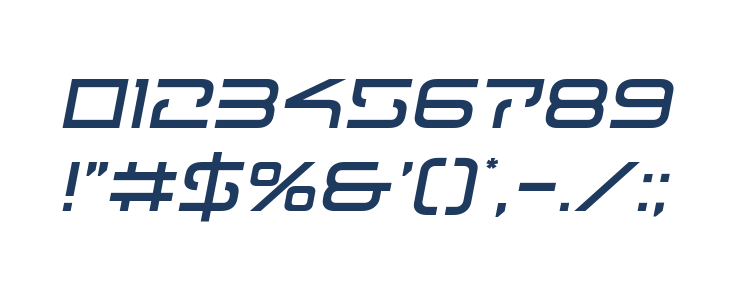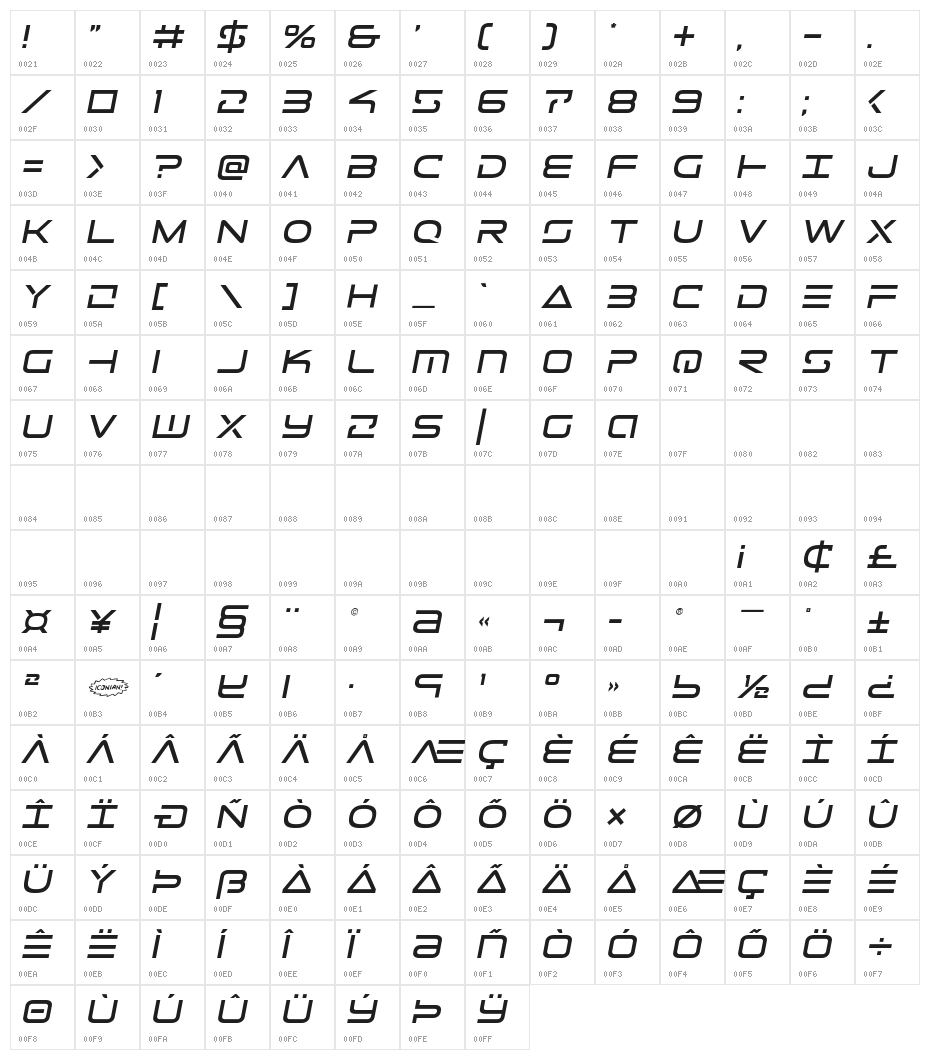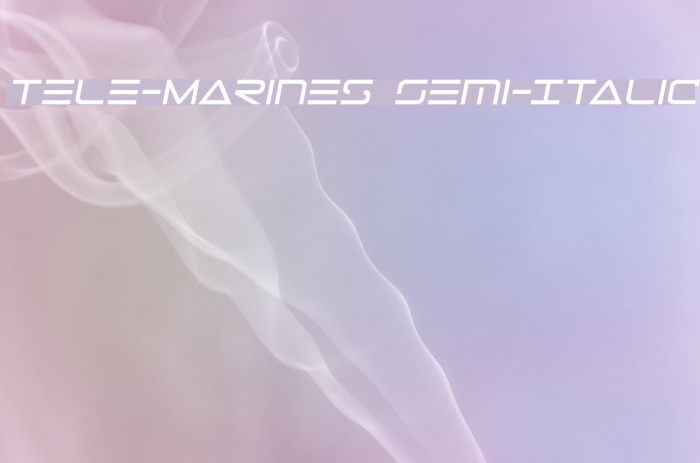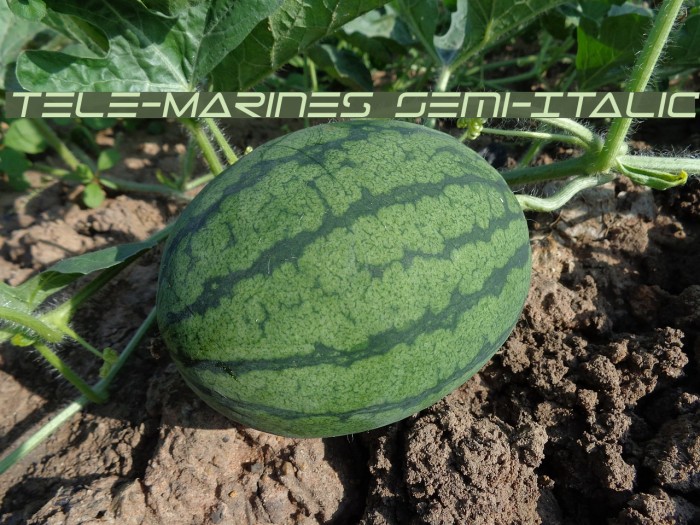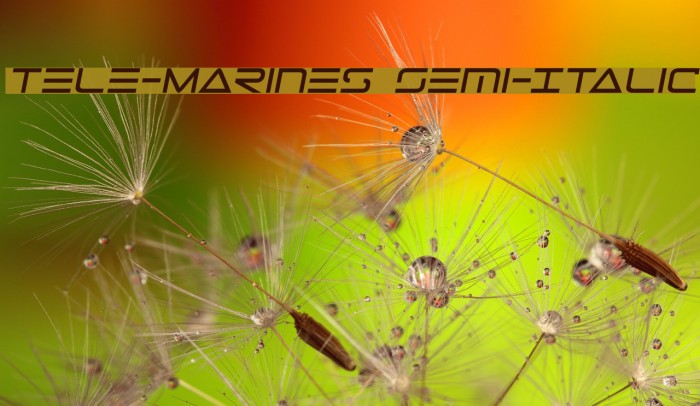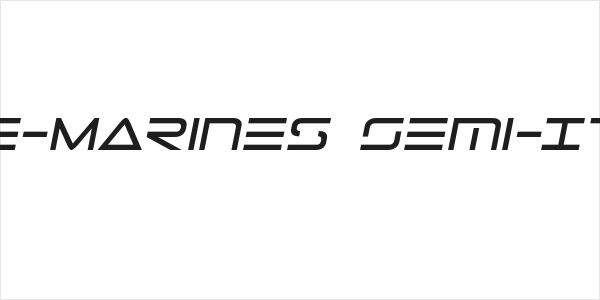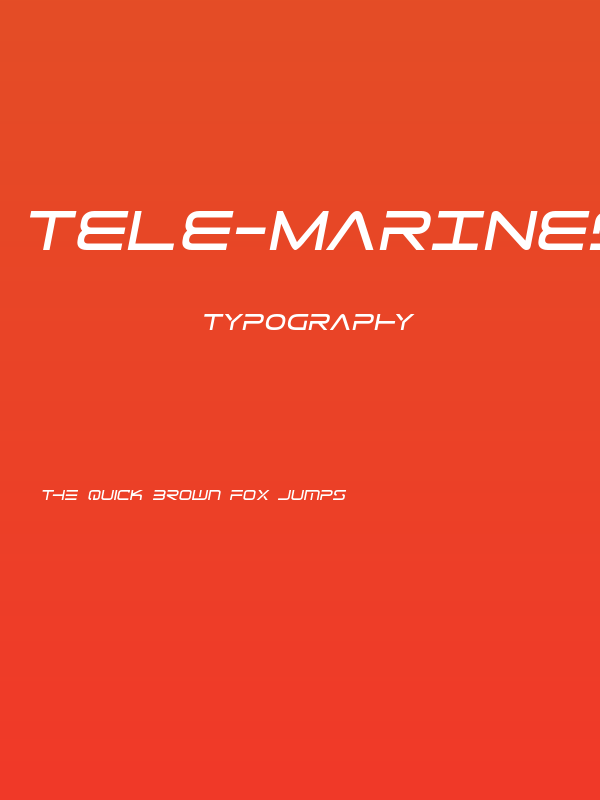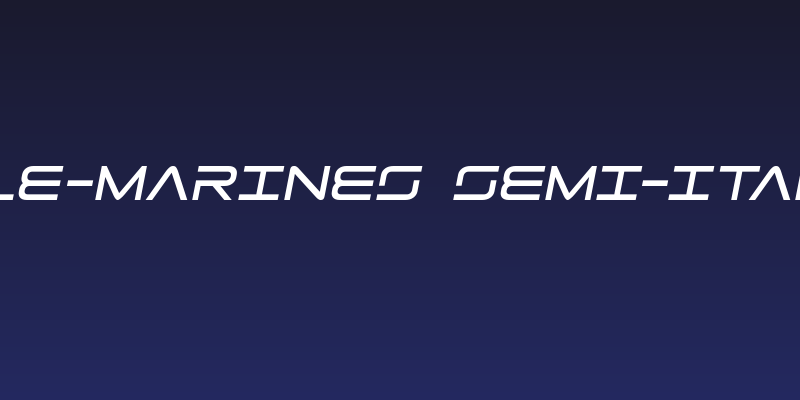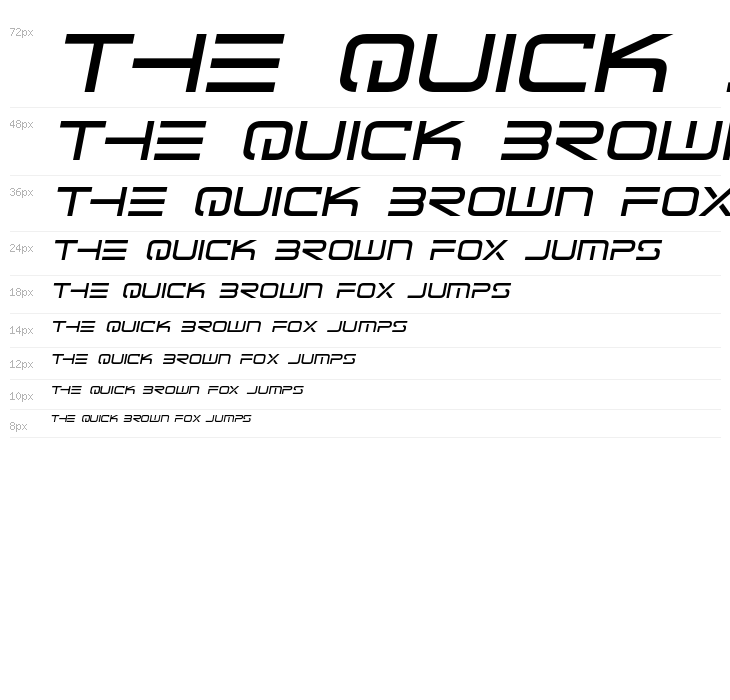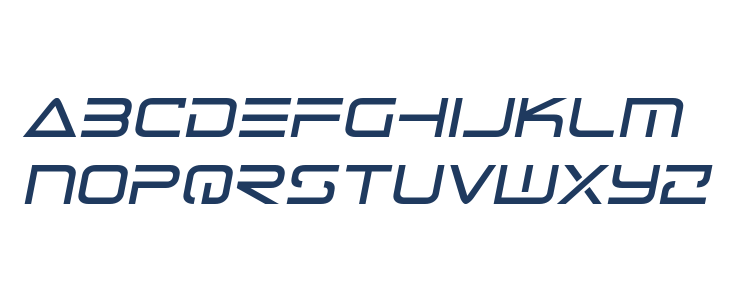
Tele-Marines Semi-Italic Font
Tele-Marines Semi-Italic Description
This font features a sleek, futuristic design with a semi-italic slant, giving it a dynamic and forward-moving appearance. The characters are crafted with sharp angles and clean lines, creating a modern and technological feel. The uppercase and lowercase letters maintain a consistent style, while the numerals and special characters complement the overall aesthetic. The font's unique structure makes it suitable for projects that require a contemporary and innovative look.
| Proposed Projects | Ideal for technology branding, sci-fi themed designs, video game interfaces, and modern advertising. |